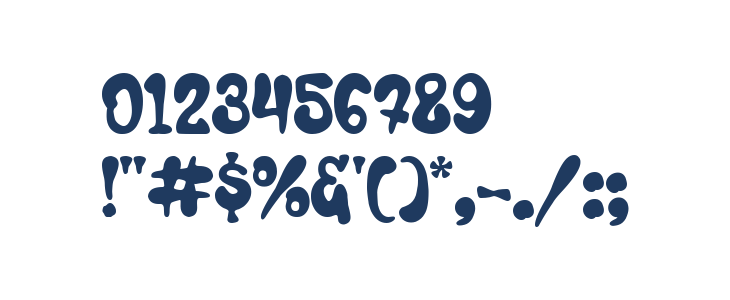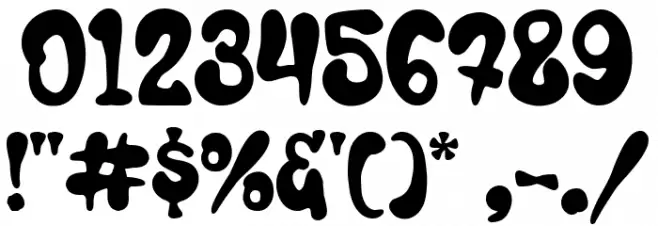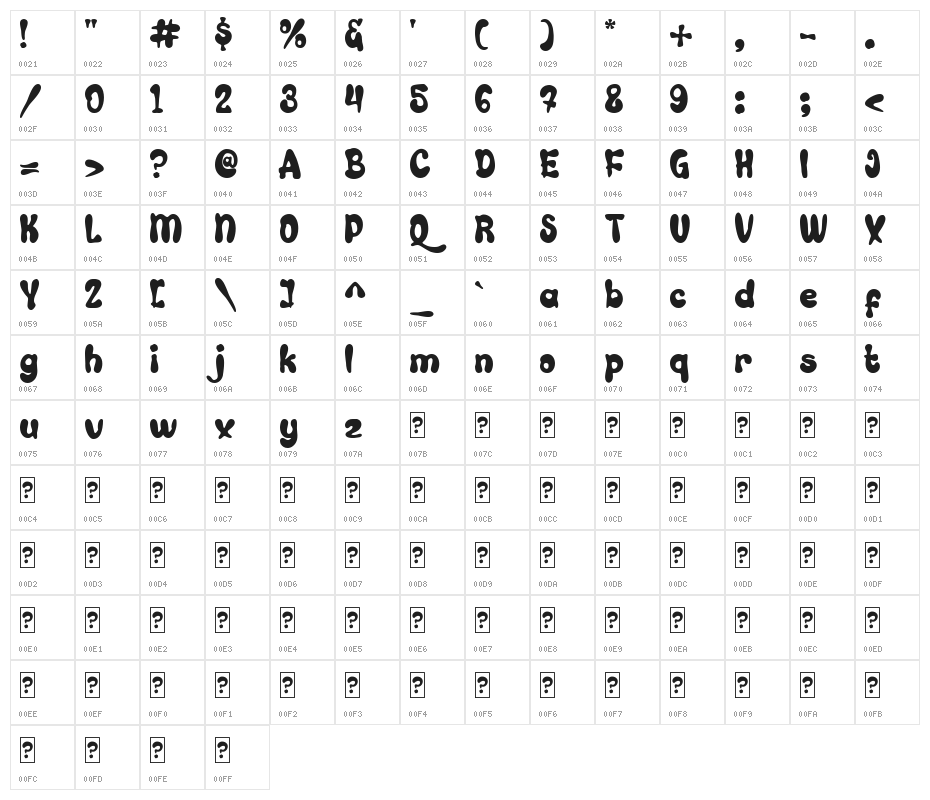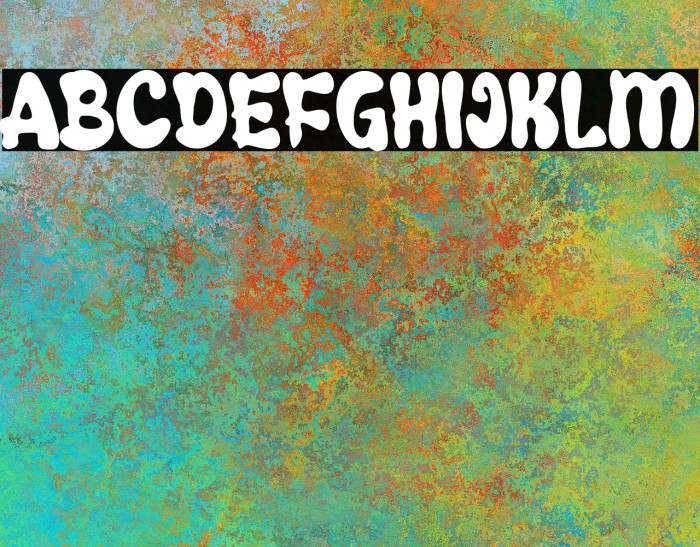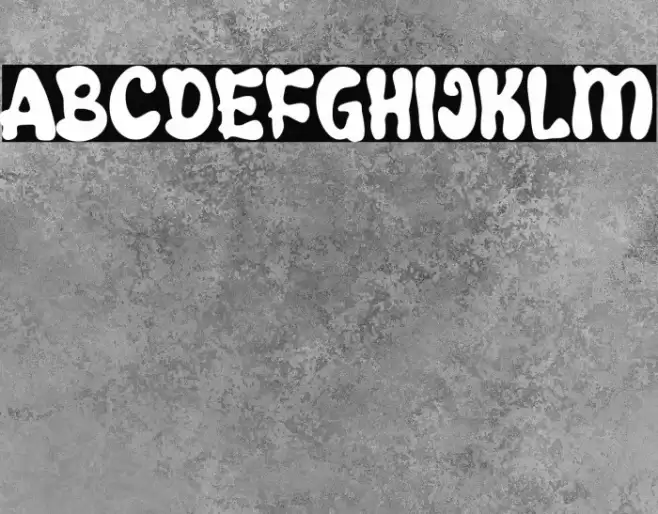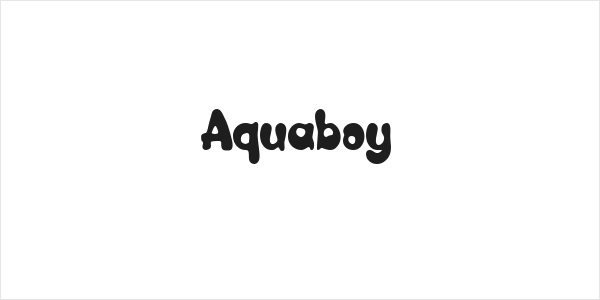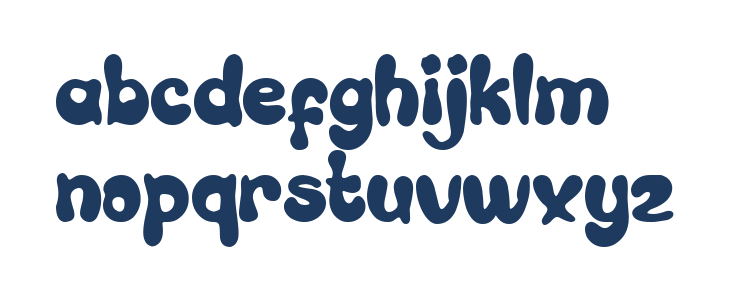
Aquaboy Font
Aquaboy Description
This font features a playful and bold design with rounded, bubbly characters that exude a sense of fun and creativity. The letters are thick and have a fluid, almost liquid-like appearance, making them stand out with a unique personality. The uppercase and lowercase letters maintain a consistent style, with the lowercase being slightly more compact. Numbers and special characters follow the same whimsical design, ensuring uniformity across all elements. The font's overall appearance is eye-catching and ideal for projects that require a touch of whimsy and boldness.
Overall StylePlayful
Proposed ProjectsIdeal for children's books, playful branding, party invitations, and creative posters.